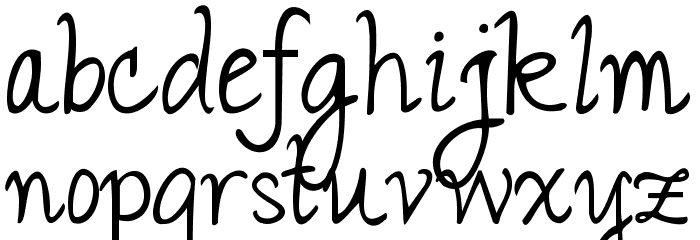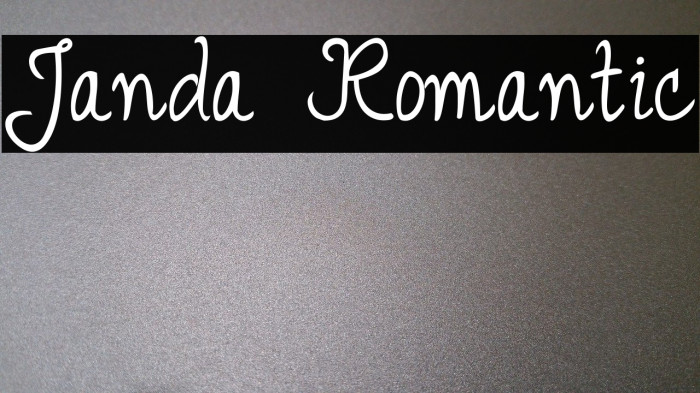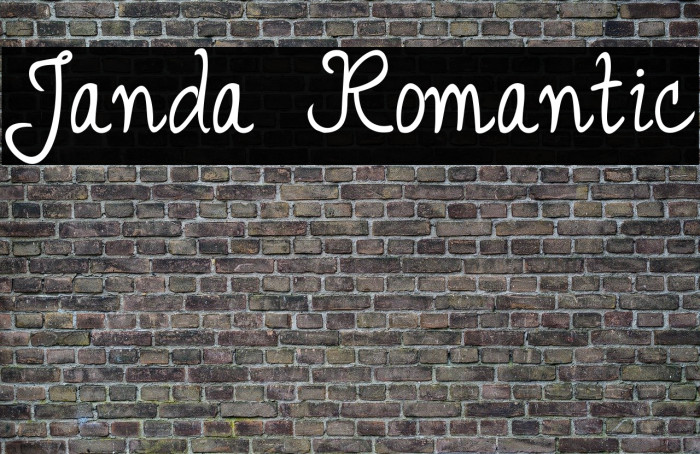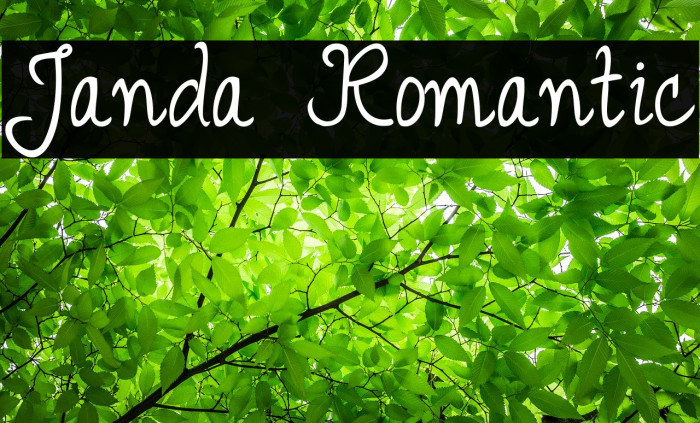
Janda Romantic Font
This font exudes a whimsical and romantic charm, characterized by its flowing, cursive style. The letters have a playful, handwritten appearance with smooth curves and elegant loops. The uppercase letters are slightly more structured, while the lowercase letters exhibit a more freeform style, adding to the overall casual yet sophisticated feel. The numerals are consistent with the font's cursive nature, maintaining the same fluidity and grace. Special characters are thoughtfully designed to match the aesthetic, making this font versatile for various creative applications.
A whimsical, cursive font with a romantic and playful style.
- Proposed Projects: Ideal for wedding invitations, greeting cards, personal branding, and romantic-themed designs.
- Overall Style: Romantic, Whimsical, Playful
- Use Case: Headlines, Invitations, Personal Branding